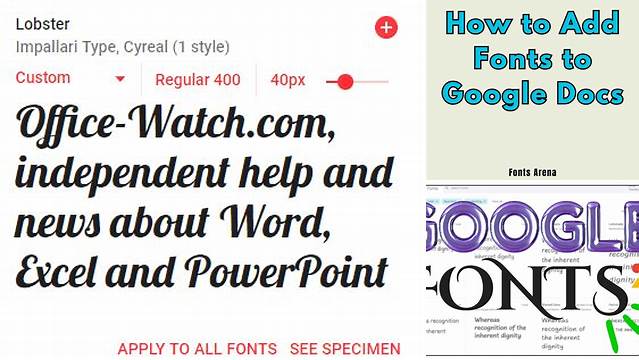
Using Google Fonts On Windows: A Simple Guide
Hey everyone! Let's dive into how to use Google Fonts in Windows. It's super easy, and you'll be spicing up your projects with cool fonts in no time. Google Fonts is an awesome library of free, open-source fonts that you can use for anything from website design to document creation. This guide will walk you through everything, so even if you're new to this, you'll be a pro by the end. Let's get started and explore the world of typography together!
Downloading Google Fonts for Windows: The Quickest Method
So, first things first, let's talk about downloading those amazing fonts. You've got a bunch of options, but I'll show you the easiest way. Head over to the Google Fonts website. The site is a treasure trove of fonts, each one unique and ready to enhance your projects. Once you're there, you'll see a whole bunch of fonts to choose from. Take your time to browse through them. I find it helpful to have a specific project in mind while I'm browsing, as that helps me narrow down the choices and pick fonts that really fit the vibe. Click on a font that catches your eye, and you'll see all sorts of information about it, like its different styles (bold, italic, etc.), and even examples of how it looks. Now, if you know the exact name of the font you are looking for, you can always use the search bar at the top of the page. That's a real lifesaver when you have a specific font in mind! When you've picked the perfect font, look for the "Download family" button. Clicking this will start the download. The download is usually a ZIP file, which contains all the font files (in .ttf or .otf format) that you need. Remember to keep the ZIP file where you can find it! Easy, right? Let's get those fonts downloaded and ready to roll!
Font Selection: Choosing the Right Google Fonts
Now comes the fun part: picking the fonts! With so many options, it can be a bit overwhelming, so here are some tips to help you make the best choices. Think about your project's style and the message you want to convey. Different fonts evoke different emotions. For instance, a sleek sans-serif font like Open Sans is great for a modern, clean look, while a more decorative serif font like Playfair Display can add a touch of elegance. Consider readability. Especially for longer texts, choose fonts that are easy to read. Fonts with a high x-height (the height of the lowercase letters) tend to be more readable. Don't be afraid to mix and match fonts. Pairing a heading font with a body font can create visual interest. But, don't go overboard: stick to two or three fonts max to keep things consistent. Also, check the font's character set. Does it support the characters and languages you need? Lastly, always preview the font in different sizes and weights to see how it looks in different contexts. That way, you'll know if it fits your design. Choosing the right fonts can really make your designs pop!
Using Google Fonts in Various Windows Applications
Alright, now that your fonts are installed, let's get them working in your favorite applications! The process is similar across different programs. Open the application where you want to use the font (e.g., Microsoft Word, Adobe Photoshop, etc.). Start a new document or open an existing one. In the application's text tools or font settings, look for the font selection menu. This is usually a dropdown menu where you can choose from a list of installed fonts. Scroll through the list until you find the Google Fonts you installed. They'll likely be listed alphabetically along with your other fonts. Select the font you want to use. You can then adjust the font size, style (bold, italic), and color. Start typing, and your text will appear in the new Google Font. Experiment with different fonts and styles to see what looks best. Each application might have slightly different font tools, but the basic process is the same. Now go create some awesome designs!
Google Fonts in Microsoft Word: A Step-by-Step Guide
Let's start with Microsoft Word, a super common tool for all sorts of documents. Open Microsoft Word. Start a new document or open an existing one. In the ribbon at the top of the Word window, you'll see the font section. It usually includes the font selection dropdown, font size, bold, italics, and other formatting options. Click the dropdown menu to open the font list. Scroll through the list until you find the Google Fonts you installed. They are typically listed alphabetically. Select the Google Font you want to use. Now, type your text, and it will appear in the newly selected Google Font. You can customize the font further. Adjust the font size using the size dropdown or the increase/decrease size buttons. Apply bold, italics, or underline as needed. Change the color of the text using the font color option. Word also has options to change the paragraph style, spacing, and alignment. Keep experimenting with different fonts and styles to find the perfect look for your document. Have fun creating those beautiful documents!
Integrating Google Fonts in Adobe Photoshop: Design Magic
Font Loading Strategies: Improving Performance
Let's learn how to make your website load faster using font loading strategies! First, use the font-display property. This property defines how the font will load. font-display: swap; displays the text immediately using a fallback font. The font will swap in once loaded. Try font-display: fallback; if you want to display the text immediately. However, the font swap may cause layout shifts. Then use preload. Preload your fonts to load them earlier. Use <link rel="preload" as="font" href="font.woff2" crossorigin> in your HTML. Lastly, try caching. Caching will reduce the number of times your users have to download the fonts. With these techniques, you'll get better performance and faster loading times!